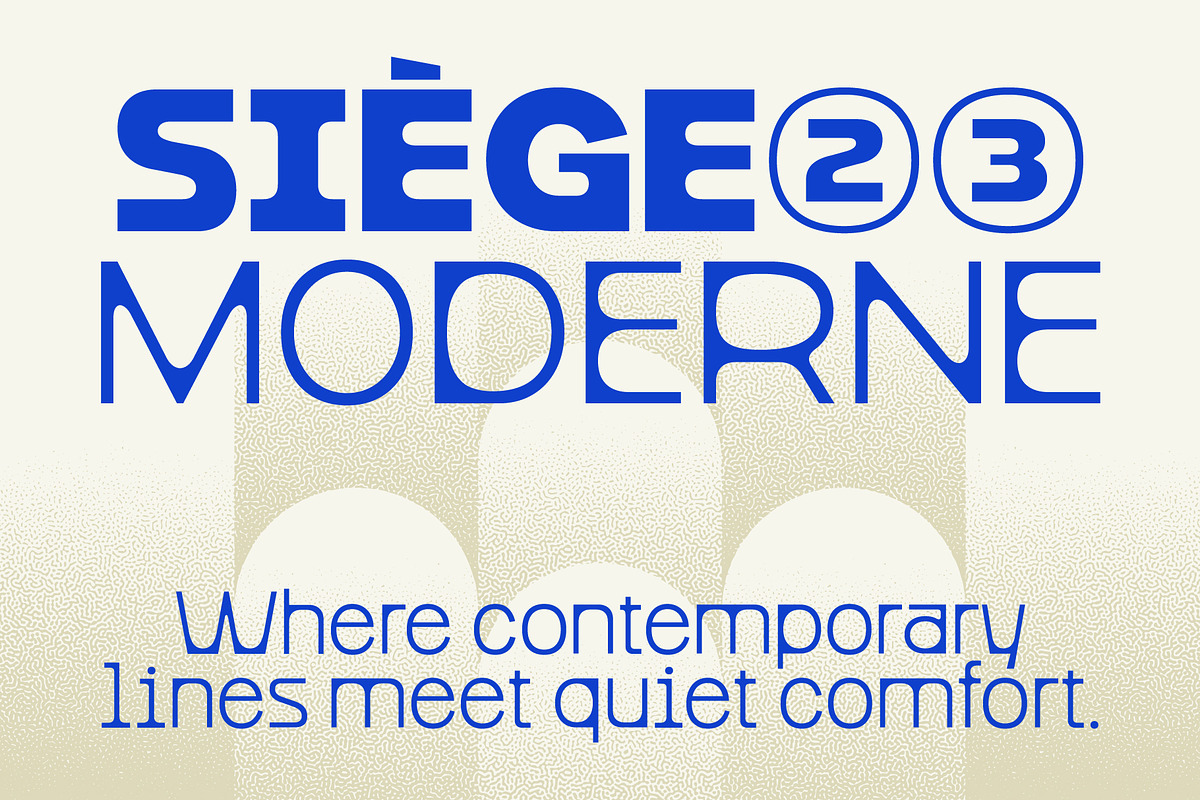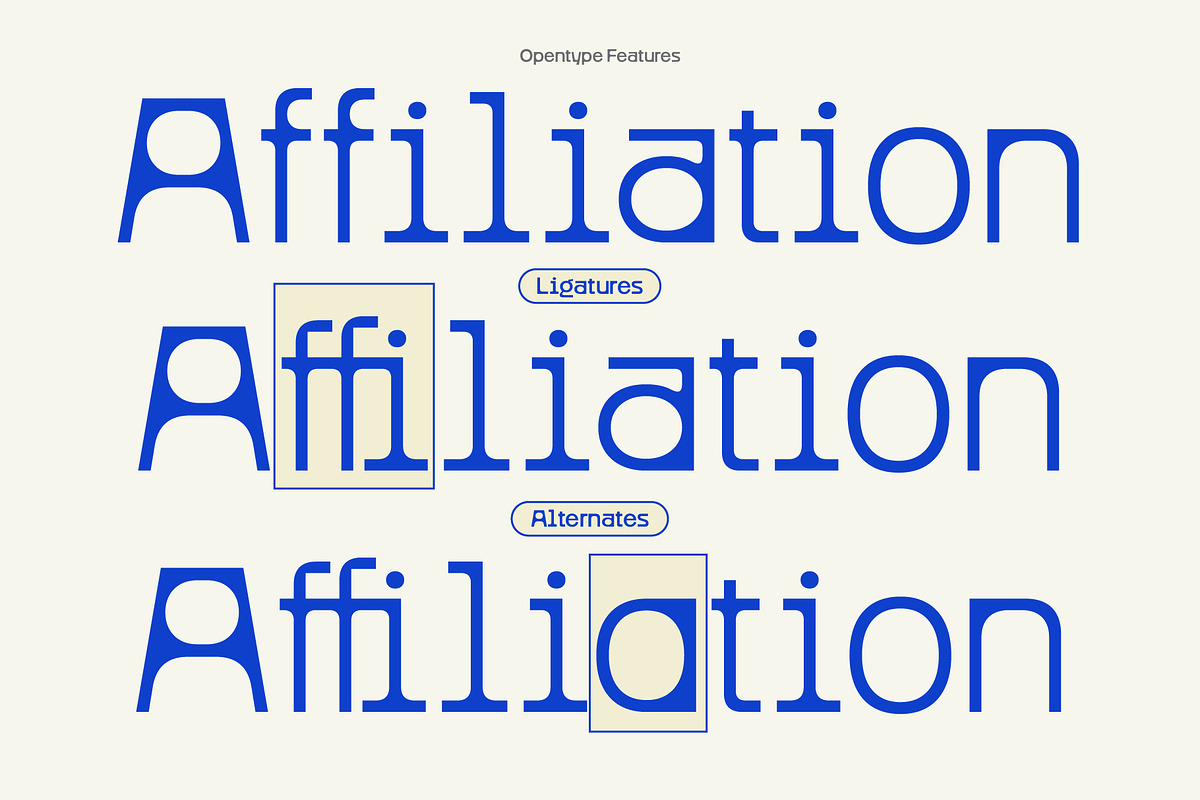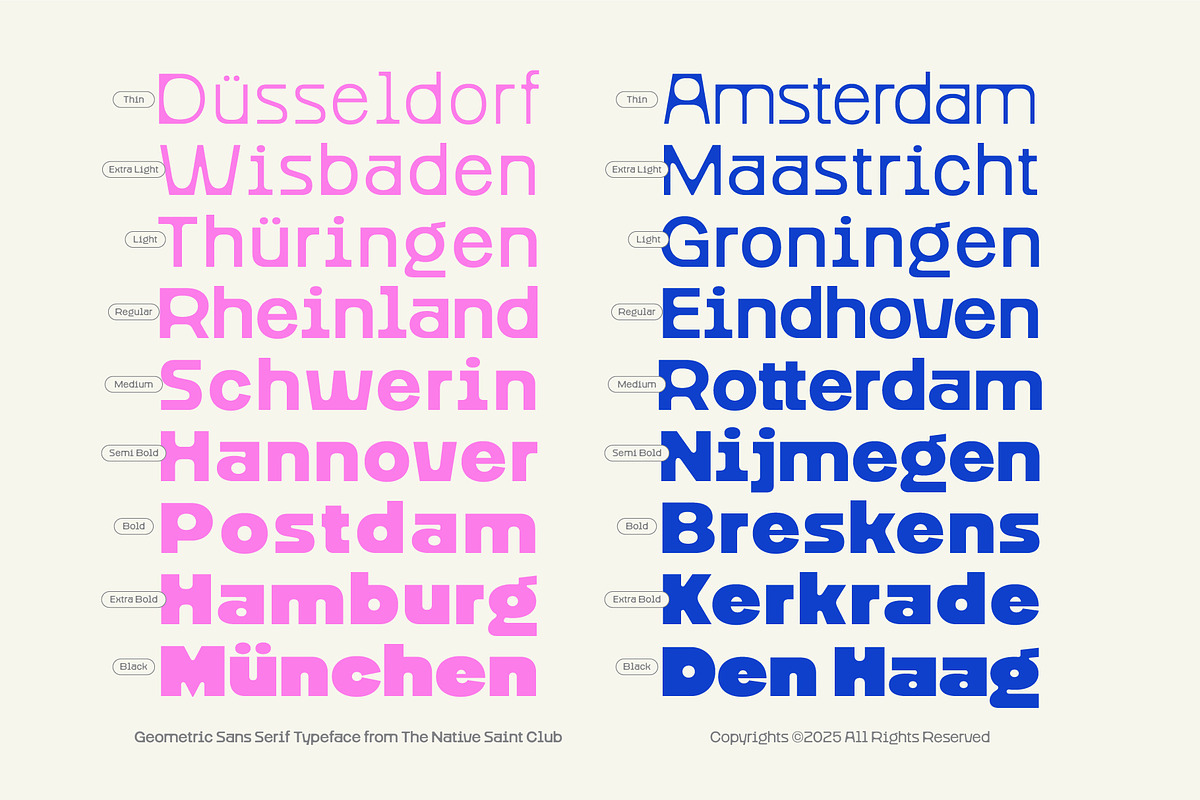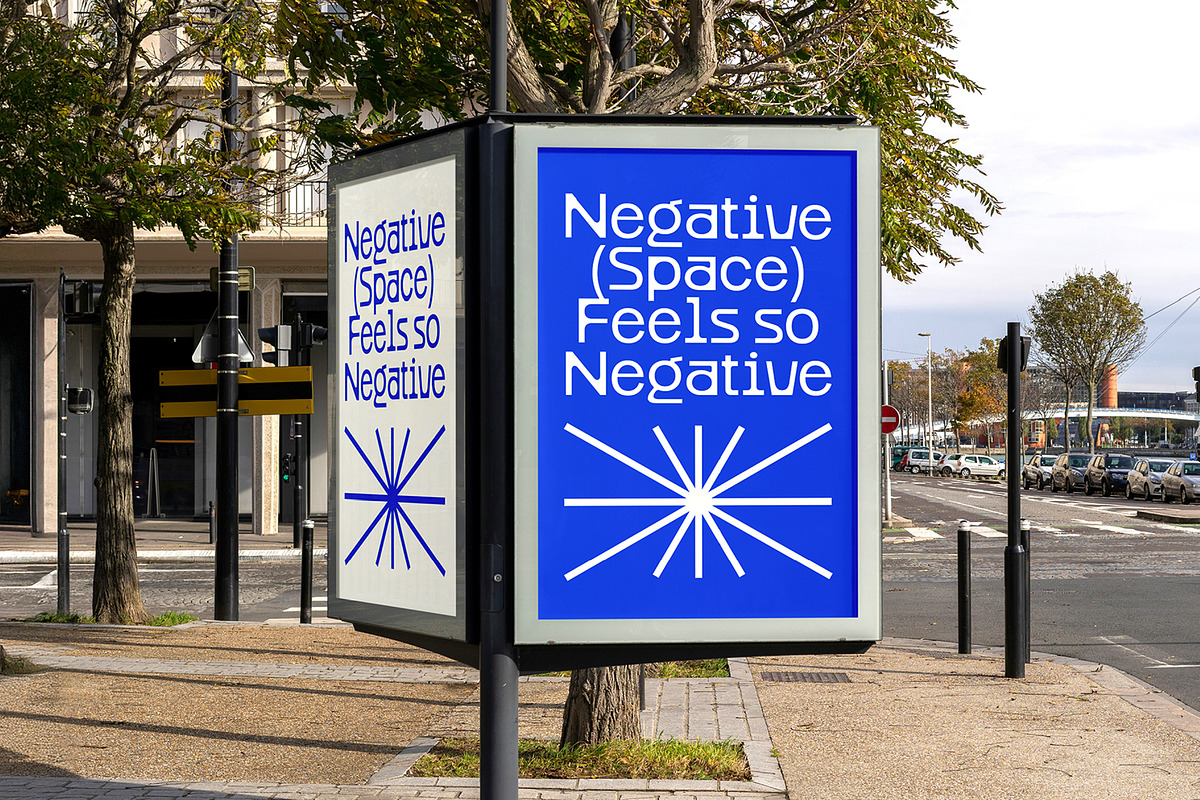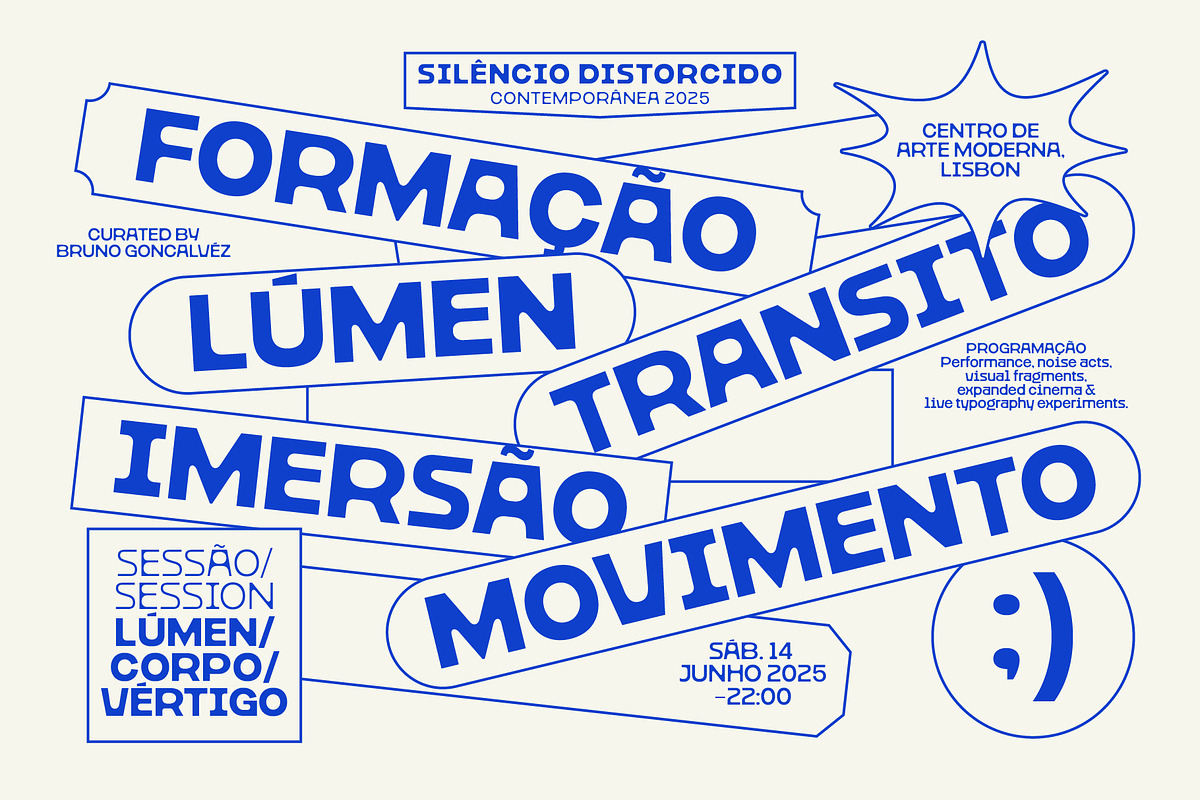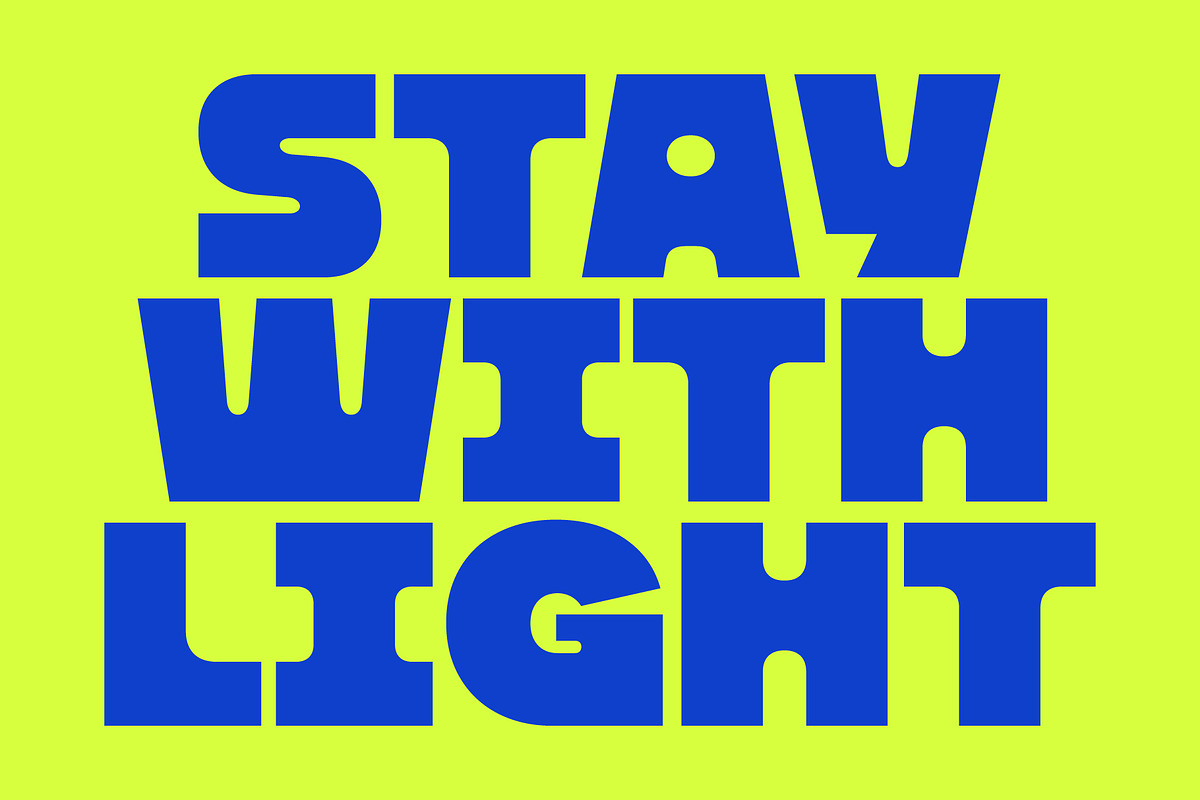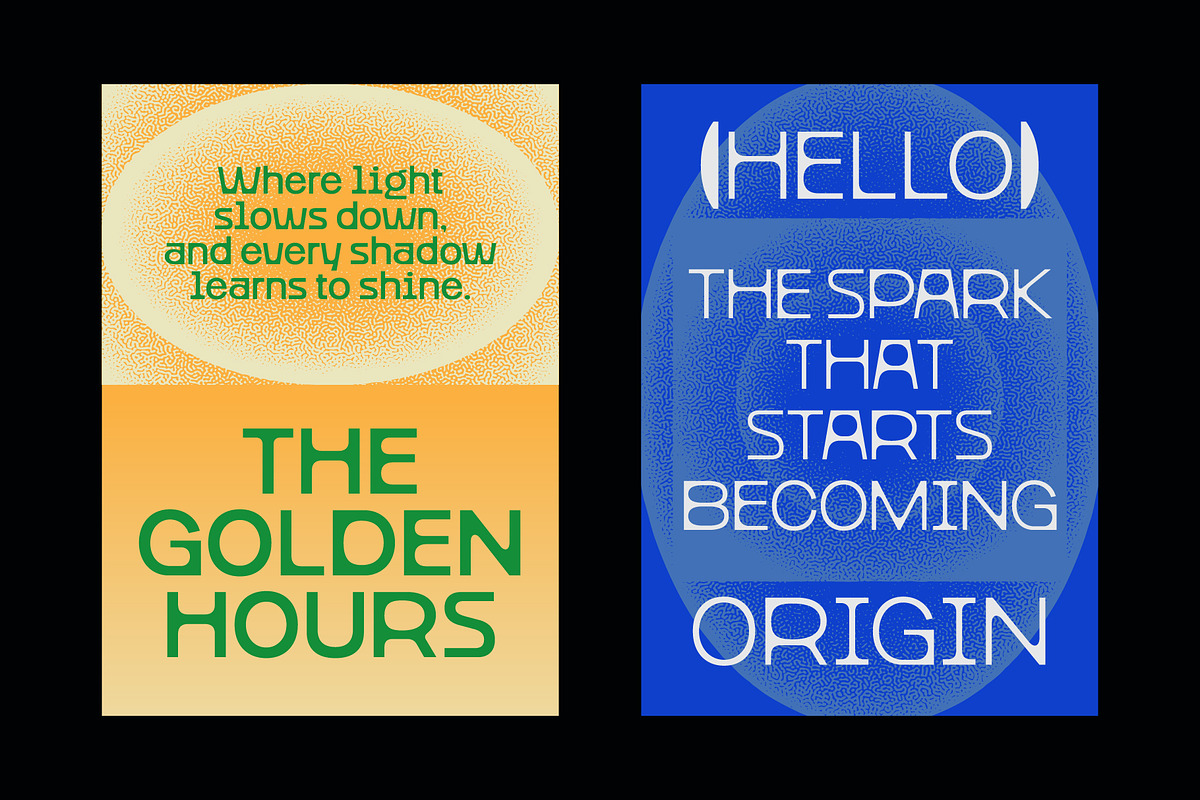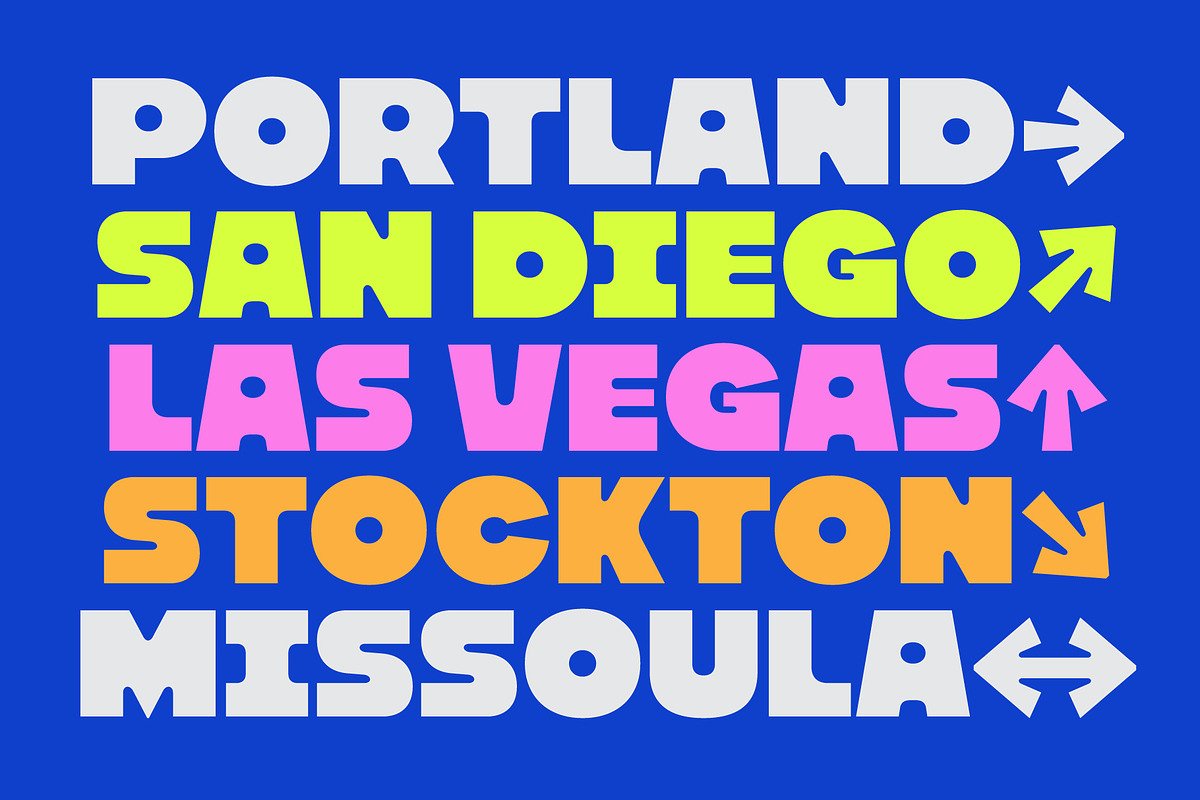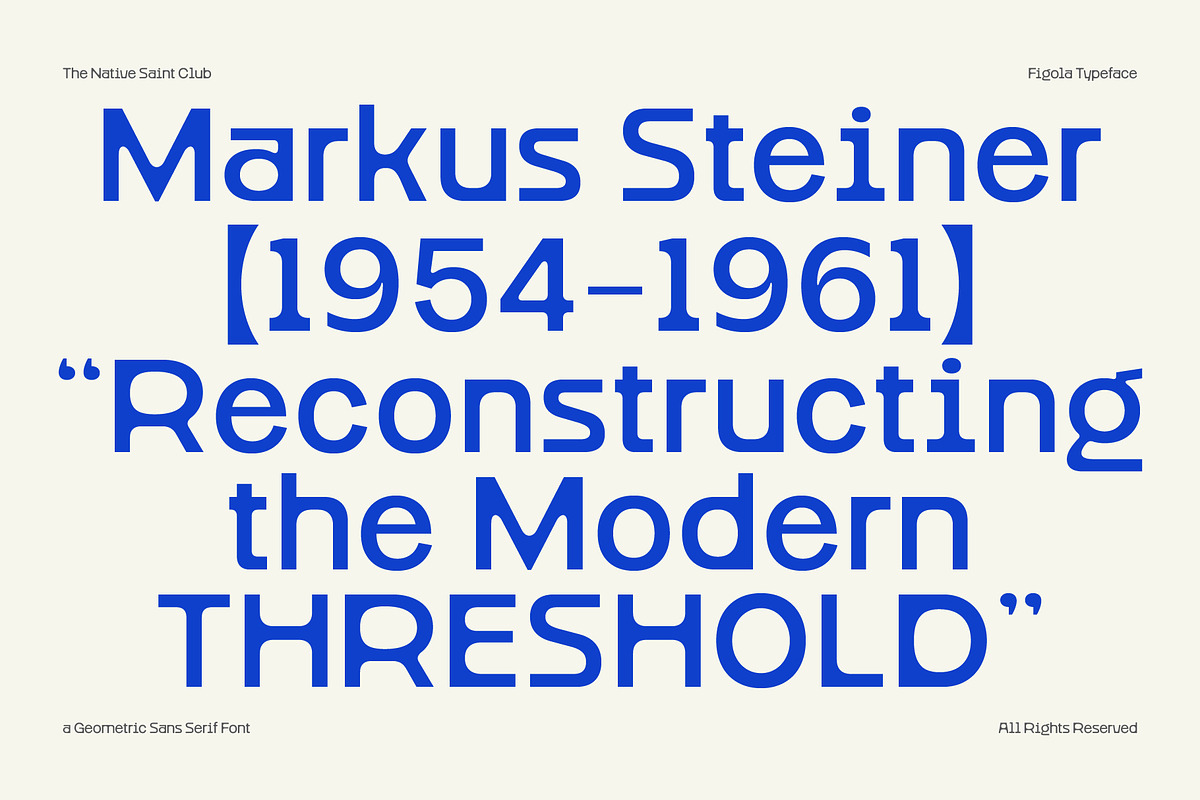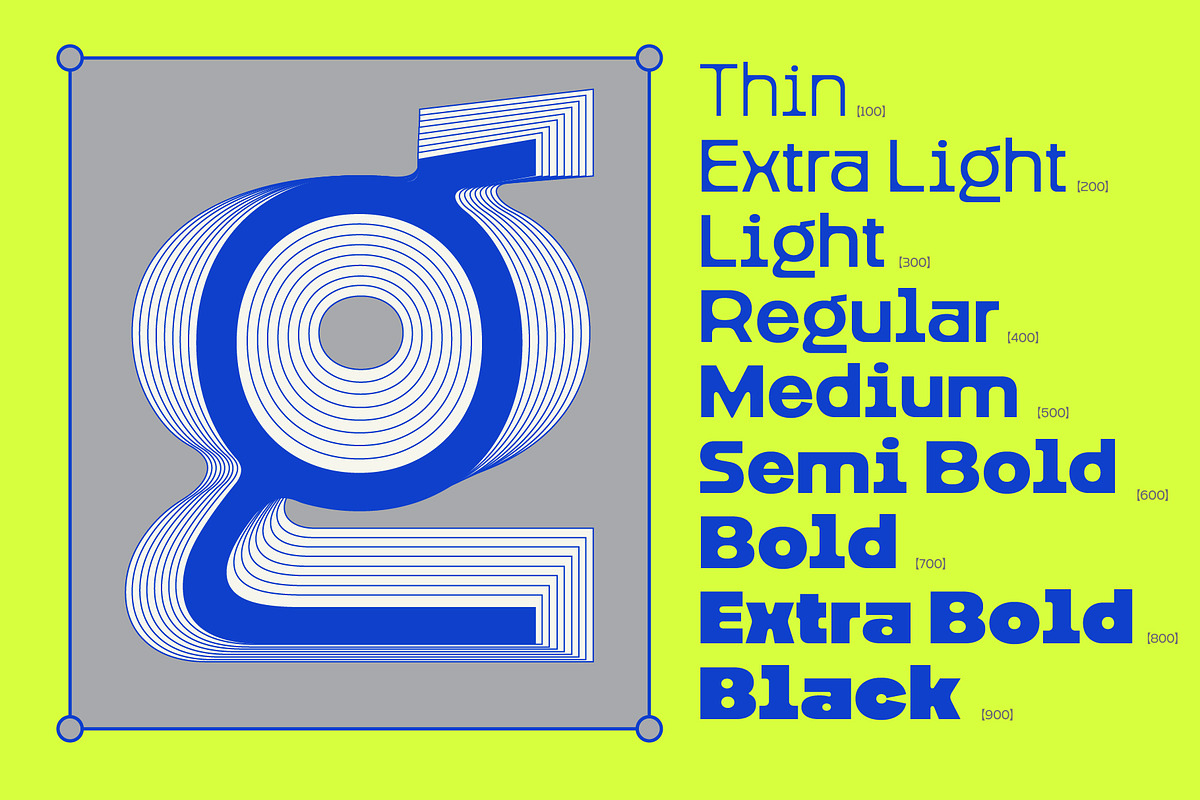
Figola - Geometric Sans Serif
Figola designed with strong geometric forms and soft curves, this type family includes 9 weights from Thin to Black, allowing precise control over weight and visual rhythm. With extensive glyph coverage, circled numerals, and multilingual support. Perfect for branding, posters, editorial layouts, wayfinding, packaging, signage, and modern UI.